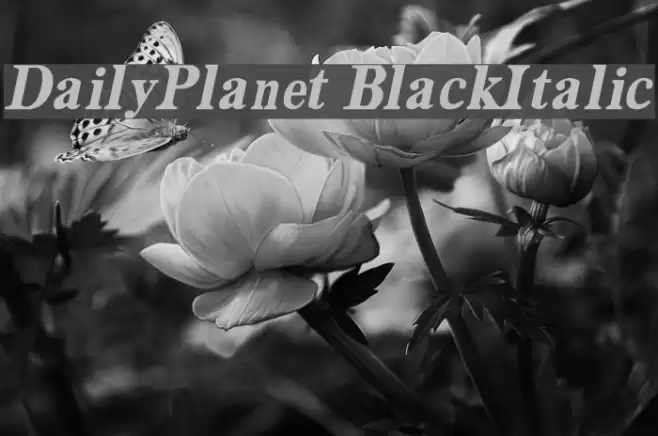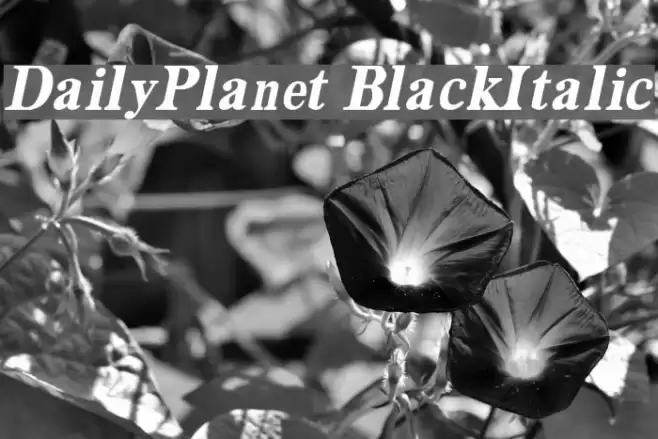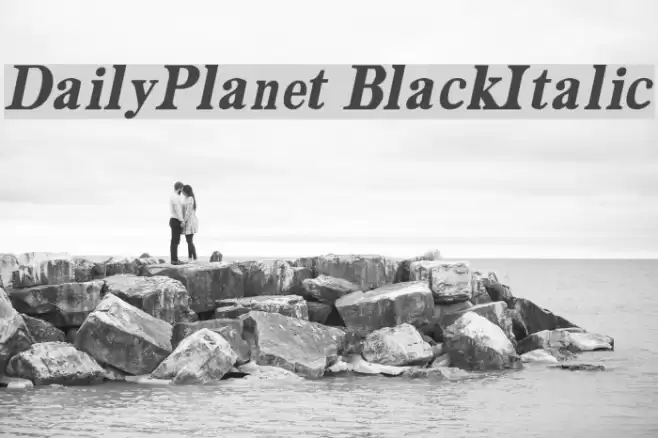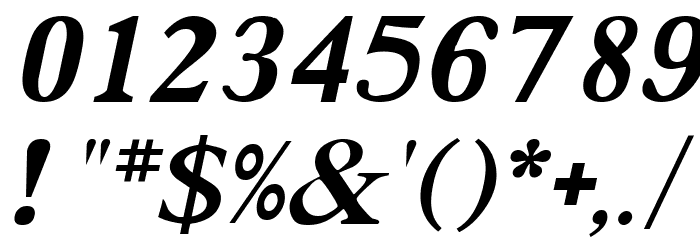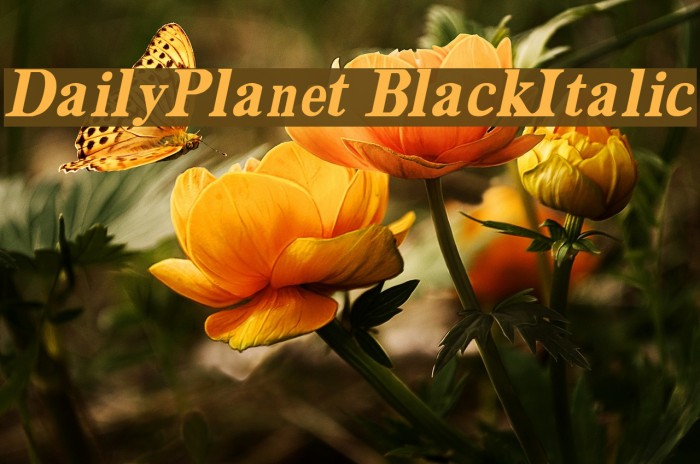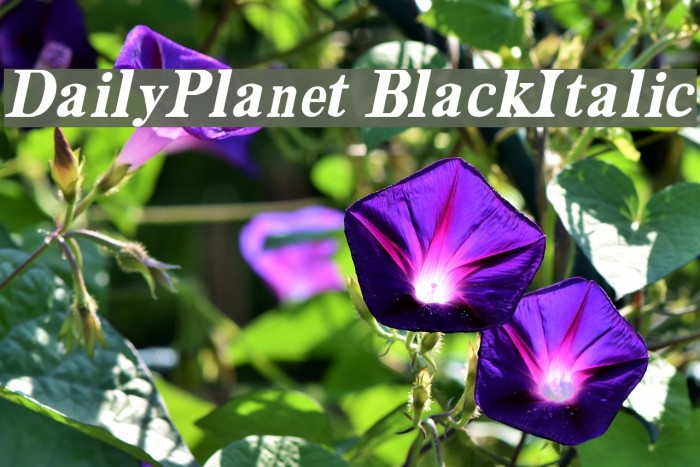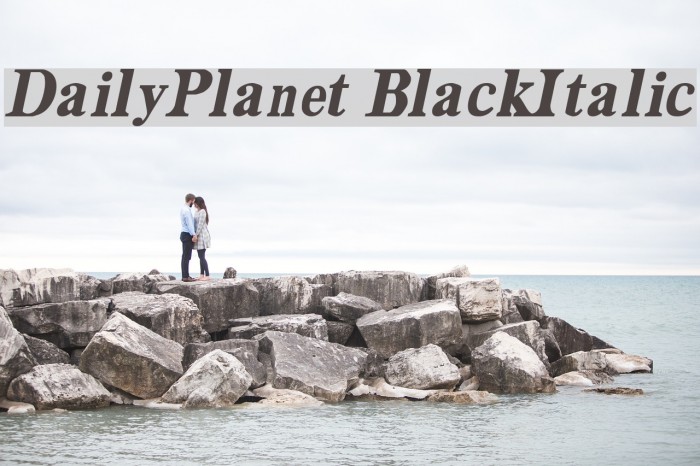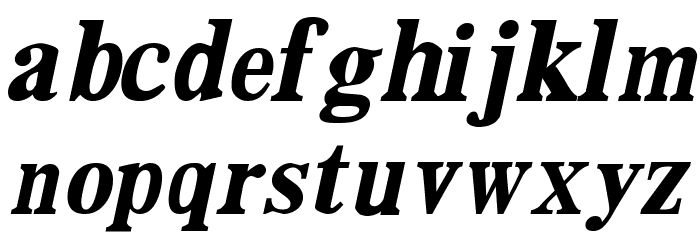
DailyPlanet BlackItalic Font
DailyPlanet BlackItalic Description
This font exhibits a bold and italicized style, characterized by its strong and confident appearance. The letters are slanted, adding a dynamic and energetic feel. The strokes are thick and consistent, providing a robust and impactful presence. The serif elements are pronounced, giving it a classic yet modern touch. The numerals and special characters maintain the same boldness and slant, ensuring uniformity across all characters. This font is designed to stand out, making it ideal for attention-grabbing headlines and titles.
Bold, italicized serif font with a strong and dynamic presence from Uncategorized fonts.
- Proposed Projects: Ideal for headlines, magazine covers, posters, and branding materials that require a bold statement.